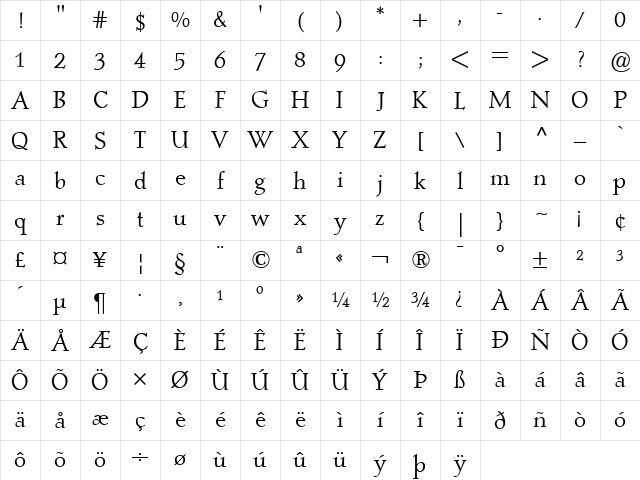
Complete Post Mediaeval Regular glyph index. Displaying only characters natively supported by Post Mediaeval Regular font.
Post Mediaeval is a composed and adaptable typeface that performs quietly and consistently across a wide range of design contexts.